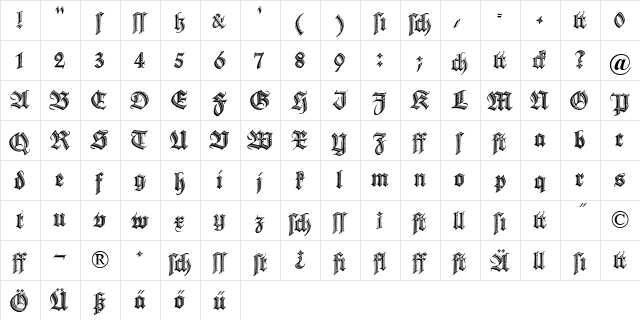
DS Zierschrift Regular
| Foundry | Typographer Mediengestaltung |
| Designer | Prof. Rudolf Koch (1919-1921) |
Design Context for DS Zierschrift Typeface
DS Zierschrift is a composed and adaptable typeface that performs quietly and consistently across a wide range of design contexts.